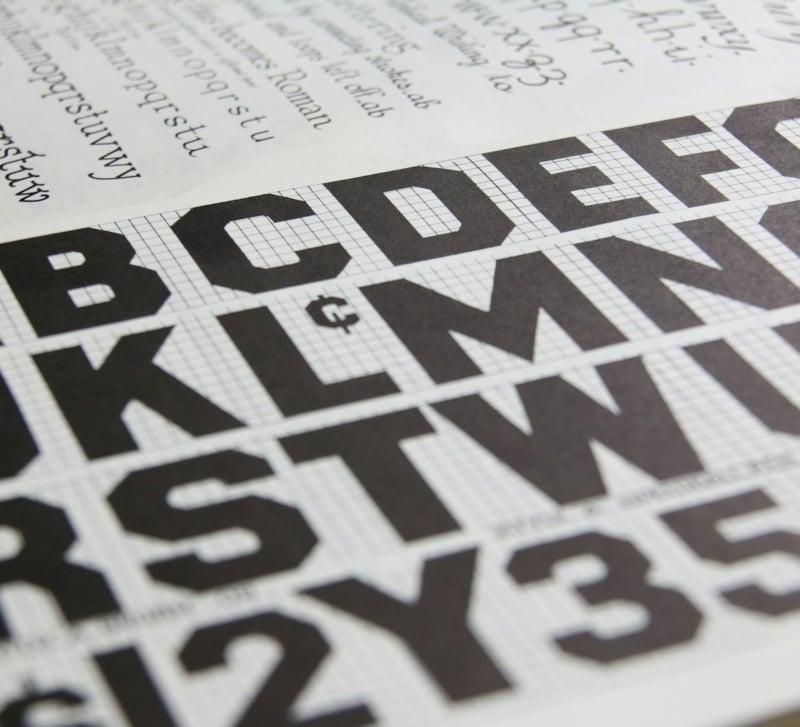
Which Free Fonts Actually Print Well? A Guide to Choosing Type for Business Cards and Brochures
A font that looks sharp on a laptop screen does not always survive the trip to paper. Anyone who has picked a beautiful free typeface for a project, only to see it turn muddy, cramped or oddly spaced once it comes off the press, knows this problem well. Screens and paper are different mediums with different rules, and type that reads perfectly at 100 percent zoom can behave in unexpected ways once it is scaled down to a business card or spread across a tri-fold brochure.
This matters more than most people realise when planning printed materials. Font choice affects legibility, brand tone and even how professional a finished piece looks sitting on someone’s desk. This guide walks through what actually changes between screen and print, how to choose type that holds up in small formats, and where common mistakes tend to creep in before a job goes to press.
None of this requires a design background to get right. It mostly comes down to understanding a handful of print-specific quirks, testing choices properly before a full run, and knowing which small details tend to cause the biggest problems later on. It also helps to work with a custom printing company that pays attention to typography, rather than one that treats every file the same way regardless of the fonts inside it.
Why Screen-Friendly Fonts Do Not Always Translate to Print
Digital screens are backlit and forgiving. Even a thin, delicate typeface looks crisp on a monitor because the light is coming from behind the letterforms. Paper works the other way around. Ink sits on the surface and can spread slightly depending on the stock, which means very fine strokes, tight counters (the enclosed spaces inside letters like ‘a’ and ‘e’) and hairline serifs can lose definition once printed.
This is especially noticeable at small sizes. A font that looks elegant as a website heading might blur or fill in when reduced to 8 point type on a business card. The opposite problem also happens: some fonts that look plain or even a little heavy on screen actually print beautifully, because their sturdier strokes hold their shape at a smaller scale. The only reliable way to know is to test a font in the actual size and format it will be used in, rather than judging it purely from a screen preview.
Serif, Sans Serif and the Question of Legibility on Paper
The serif versus sans serif debate comes up constantly in print design, and the honest answer is that neither is automatically better. What matters more is how the specific typeface behaves at the size it will be printed.
Serif fonts, with their small decorative strokes at the ends of letters, can guide the eye along a line of text, which is why they are often favoured for longer passages of body copy in booklets or reports. But serif details that are too fine will not hold up well on lower-quality stock or at small point sizes, so the specific weight and structure of the font matters as much as the general style.
Sans serif fonts tend to be more forgiving in small formats because their strokes are more uniform, which is part of why they dominate business cards, signage and anything meant to be read quickly. That said, a sans serif font with very tight letter spacing can look cramped once printed, particularly in all capitals. The safest approach is to print a physical test proof of any font before committing to a full run, since colour, spacing and clarity often look different once ink meets paper.
Choosing Type for Business Cards: Small Space, High Stakes
Business cards are one of the most unforgiving formats for type, simply because there is so little room to work with. A name, title, phone number and email all need to fit clearly onto a card roughly the size of a credit card, which leaves almost no margin for error if the font does not perform well at a small scale. This is a case where good business card printing depends as much on the type choice as it does on the paper stock or finish, since even the best-quality card cannot fix text that is difficult to read.
A good rule of thumb is to avoid anything with very fine hairline strokes, ornate scripts, or excessive letter spacing variation on a business card, no matter how appealing it looks in a font preview online. Stick to a typeface that stays legible when printed at 7 to 9 point size, and test how it looks in both the main text and any smaller details like a tagline or address. Bold or semi-bold weights of a font family often perform better than the regular weight in this format, since the added stroke width holds up more reliably in print.
Getting Brochure Typography Right
Brochures give a bit more breathing room than a business card, but they introduce a different challenge: consistency across headings, body copy and captions, often across multiple pages or folds. Reliable brochure printing services can only do so much if the typography itself is inconsistent, so it helps to settle on a small font system before the design work begins rather than adjusting it page by page.
A simple approach that tends to work well is pairing two fonts: one for headings and one for body copy, ideally from font families that are designed to complement each other. Headings can usually carry more personality, since they are printed larger and shorter in length, while body copy should prioritise legibility above all else, particularly if the brochure includes any dense blocks of text such as pricing, terms or product details.
Line spacing matters here too. Text that looks fine on screen at single spacing can feel cramped once printed, especially on glossy stock where light reflects off the page. Adding slightly more space between lines than feels necessary on screen often produces a more comfortable reading experience once the brochure is actually in someone’s hands. The same applies to margins, which often need to be more generous in print than they appear on a digital mock-up, particularly near any folds.
Common Font Mistakes That Delay a Print Job
A surprising number of print delays come down to font issues rather than design problems. The most common one is submitting a file where the fonts have not been embedded or outlined, which means the printer’s system substitutes a default font, changing the spacing and sometimes the entire layout without anyone realising until a proof comes back looking wrong.
Another frequent issue is licensing. Many free fonts are only free for personal use, and using them in a commercial print job, such as a client’s brochure or a business’s branded stationery, can breach the terms of the licence. It is worth checking the licence attached to any free font before it goes anywhere near a commercial print file, since this is one mistake that can cause real problems well after the job has already been printed and distributed.
Finally, mixing too many typefaces in a single piece is a common trap, particularly for anyone assembling a document themselves rather than working with a designer. Two, or at most three, font families are usually enough for a business card, brochure or any other piece of print marketing. More than that tends to make a document look disorganised rather than considered, no matter how good each individual font is on its own.
Quick Checklist: Is Your Font Print-Ready?
Before sending any design off to press, it is worth running through a short checklist:
- Check the size: Test the font at its actual printed size, not just at a zoomed-in preview on screen.
- Check the licence: Confirm whether the licence covers commercial print use, not just personal or digital projects.
- Check the file: Make sure fonts are embedded or outlined in the final file so the printer’s system cannot substitute a default.
- Check a proof: Print a physical proof rather than relying on a screen or a digital PDF preview alone.
- Check the count: Stick to two or three font families across the whole piece, with a clear hierarchy between headings and body copy.
Working through this list before a job is sent to print catches most of the common issues early, when they are still easy and cheap to fix.
Working with a Printer Who Understands Type
Font choice is ultimately a design decision, but a printer that understands typography can catch problems before they become expensive ones. This might mean flagging a font that is likely to print poorly at the requested size, pointing out spacing issues that only become obvious in a physical proof, or simply asking the right questions before a job is sent to press. These are the kinds of details that separate a smooth print run from one that needs a costly reprint.
For anyone managing multiple print jobs, whether that is business cards, brochures or other marketing collateral, using online printing services makes it easier to get an instant quote, upload a print-ready file and move a job along quickly, without needing to visit a print shop in person or wait on back-and-forth emails. This is particularly useful once a font system and template have already been settled on, since reordering the same design with updated details becomes a much faster process the second time around.
Bringing It All Together
The fonts that work best in print are rarely the ones that look most impressive on screen. They are the ones that hold their shape at small sizes, stay legible under different lighting and paper conditions, and remain consistent from a business card through to a full brochure. Testing a font in its actual printed size, checking its licence before commercial use, and keeping a font system simple will save far more time than chasing the newest or most eye-catching free typeface available.
Five Rules Worth Remembering
- Rule one: Judge a font by how it looks printed, not by how it looks on screen.
- Rule two: Favour sturdier strokes and weights for small formats such as business cards.
- Rule three: Pair no more than two or three font families in any single piece.
- Rule five: Get a physical proof before committing to a full print run.
Good typography in print is mostly invisible when it is done well. Nobody reads a business card and consciously thinks about kerning or stroke weight. They simply find it easy to read, and that quiet clarity is exactly what makes a printed piece feel professional rather than homemade.